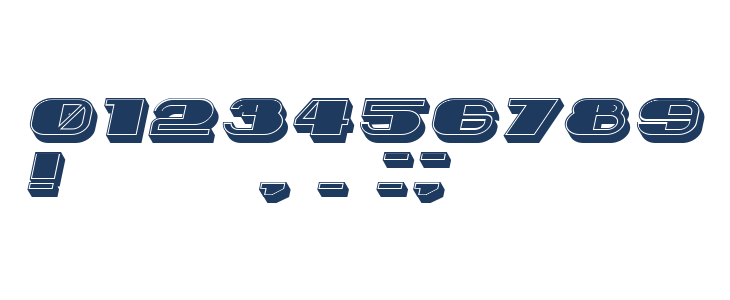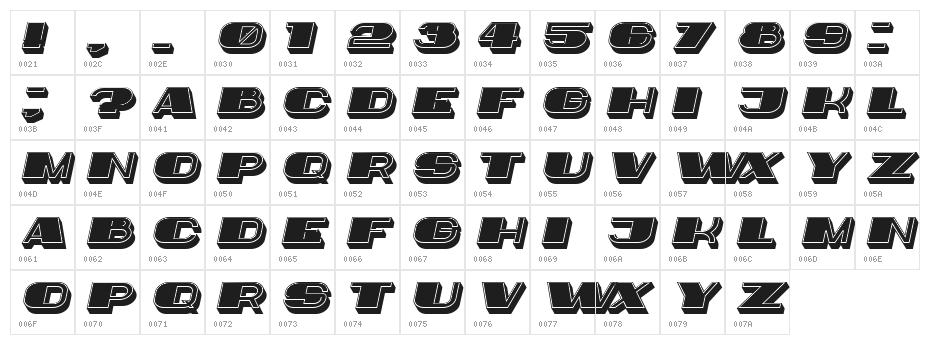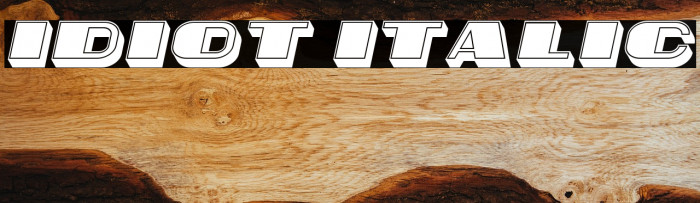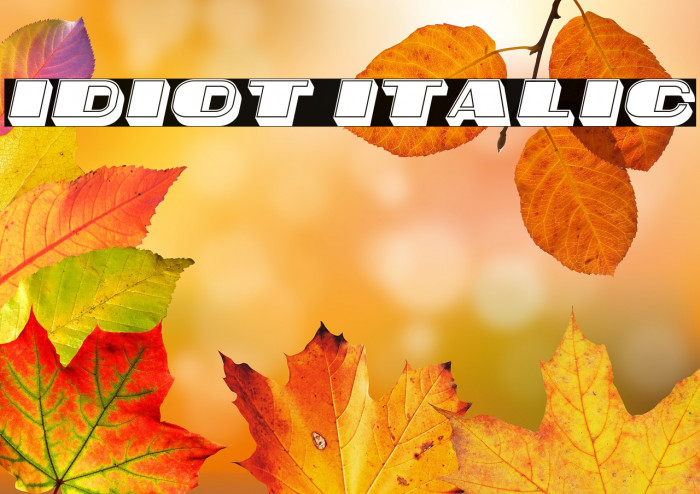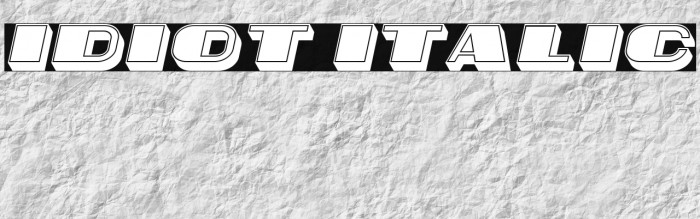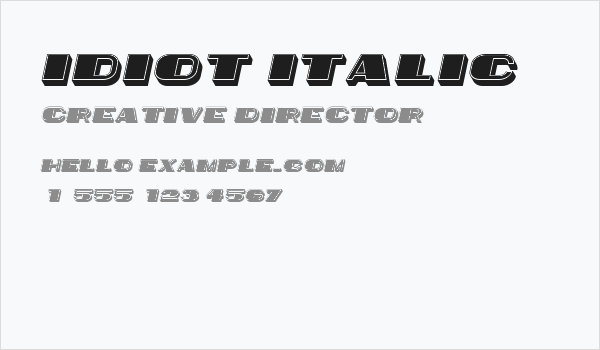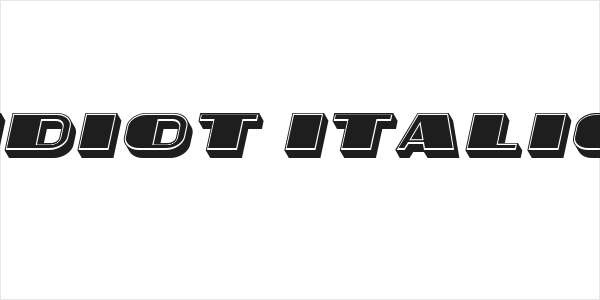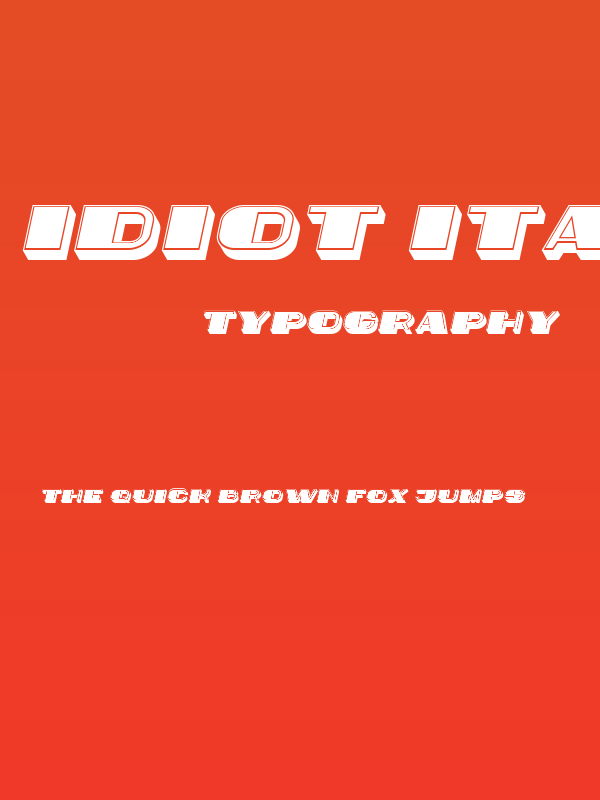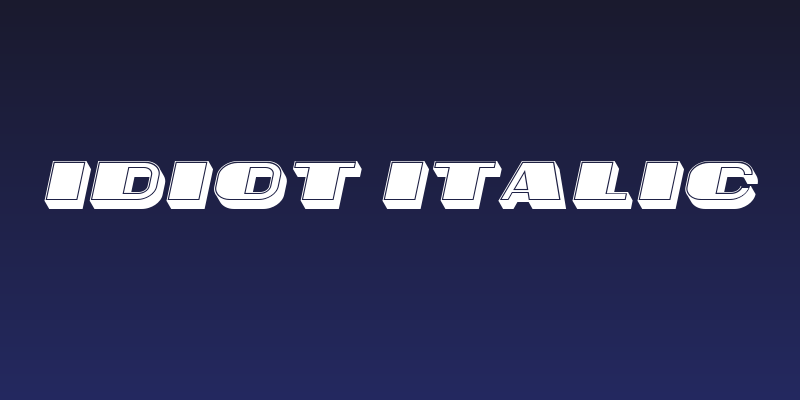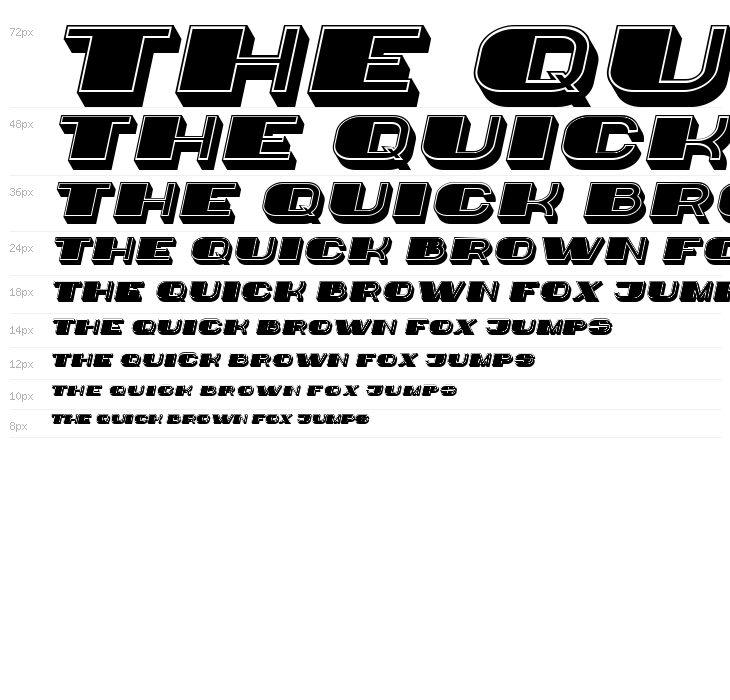
Idiot Italic Font
Idiot Italic Description
This font features a bold, italicized style with a strong, three-dimensional appearance. Each character is designed with a shadow effect, giving it a dynamic and impactful look. The uppercase and lowercase letters maintain a consistent thickness, while the numbers and special characters are equally bold and prominent. The font's design is modern and eye-catching, making it suitable for projects that require a bold statement. The italic slant adds a sense of motion and energy, enhancing its visual appeal.
| Proposed Projects | Ideal for headlines, posters, logos, and any design requiring a strong visual impact. |